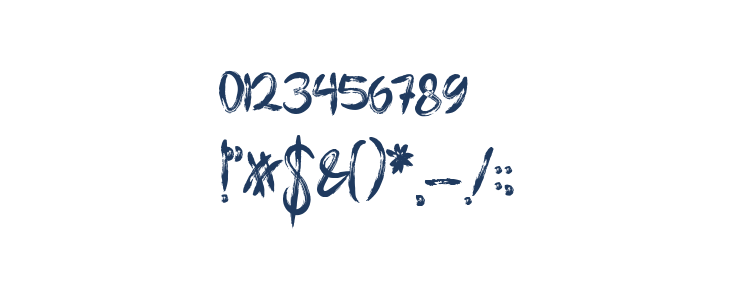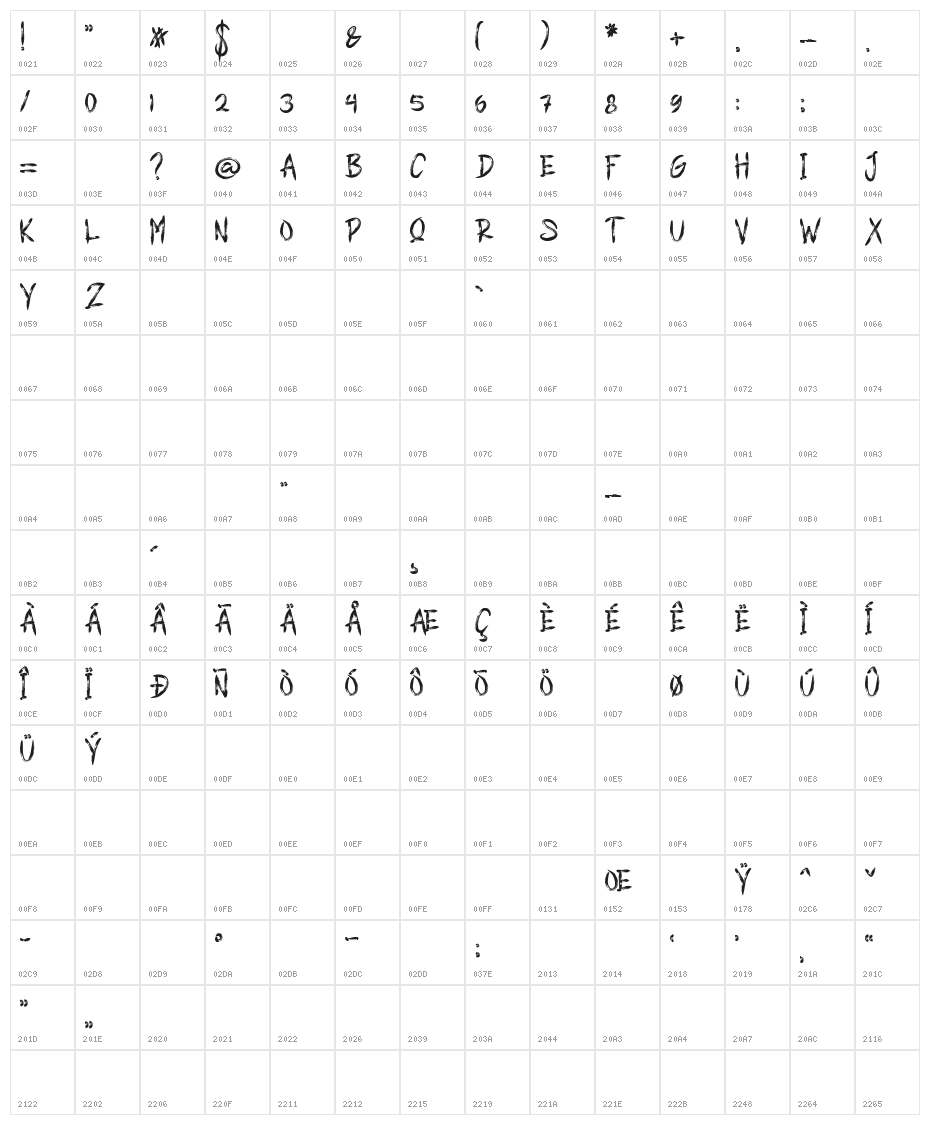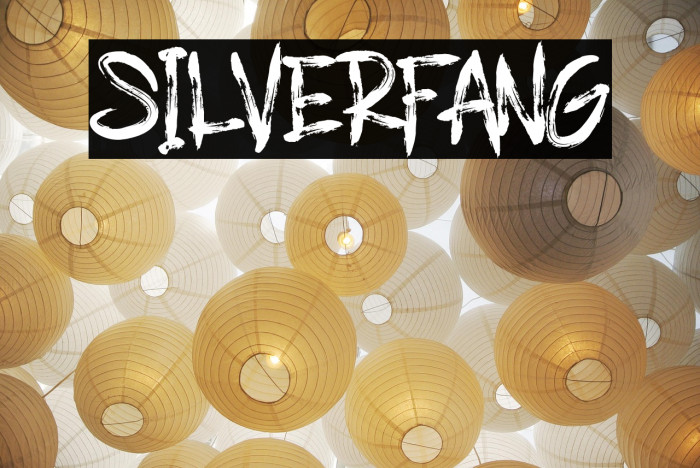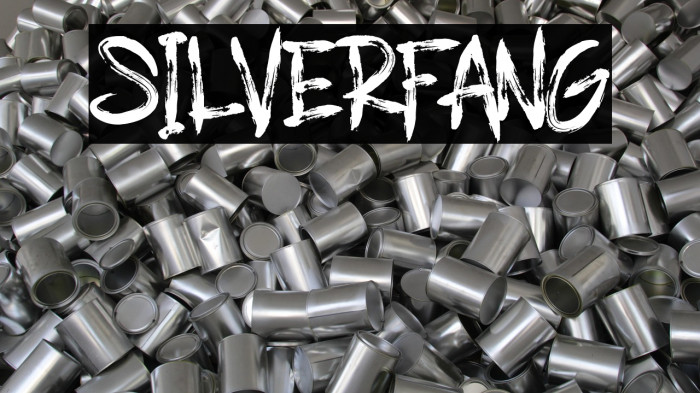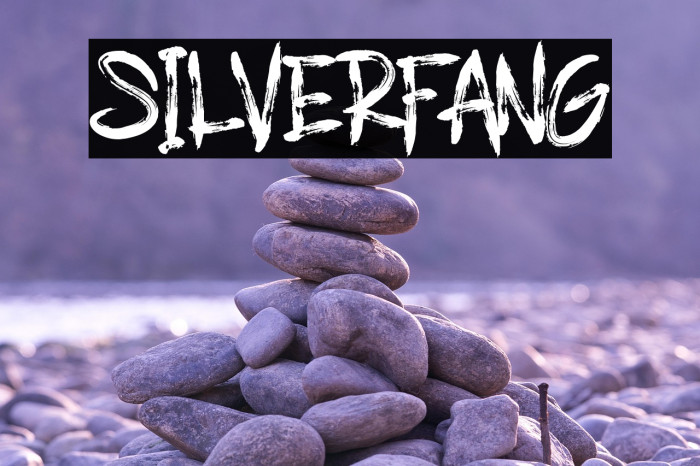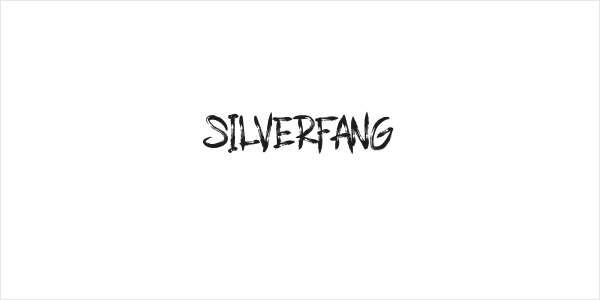
SILVERFANG Font
SILVERFANG Description
This font exudes a rugged and dynamic energy, characterized by its brush-like strokes and uneven edges. The uppercase letters are bold and assertive, with a hand-painted appearance that suggests movement and spontaneity. The numbers and special characters maintain this energetic style, adding a sense of creativity and flair. The overall design is reminiscent of graffiti or street art, making it ideal for projects that require a bold and artistic touch. The font's unique style is both eye-catching and memorable, perfect for making a statement.